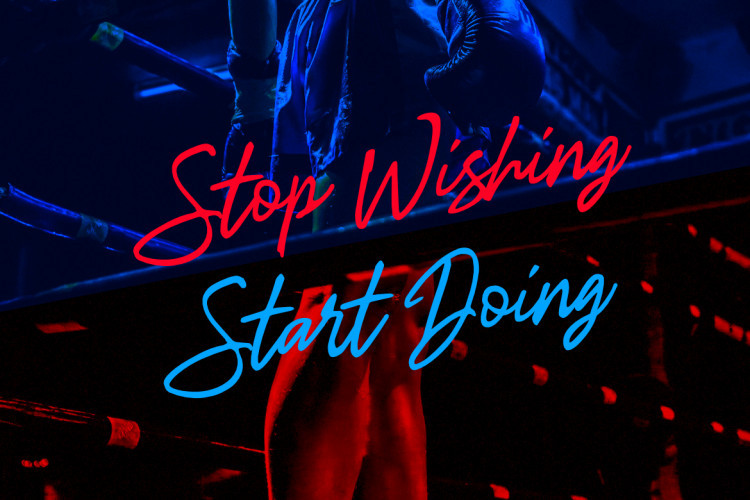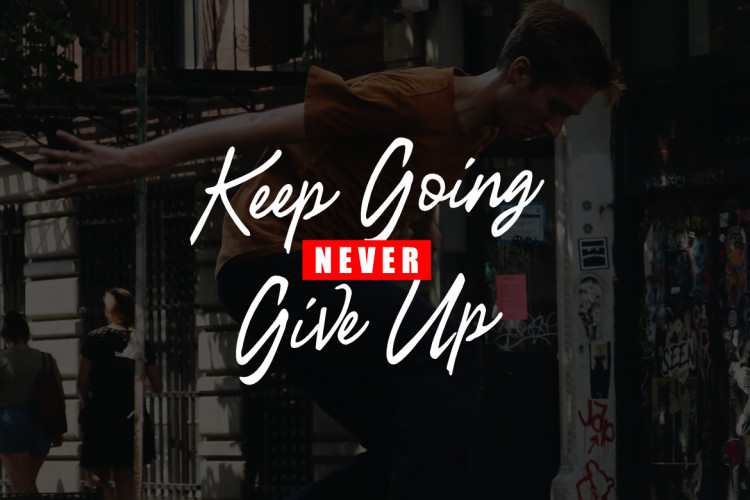
Dream Beach Script Font
A wild marker script font by Typia nesia, if you are looking for a signature font, then it is! It will make you happy. Introducing Dream Beach Font. Dream Beach Script Font is a wild marker script font. This is a carefree, handwritten script font. This font has a fun bohemian vibe. It suitable for logo, branding, t-shirt, poster, packaging, book cover, hipster design, cards, and any brush lettering needs and more.